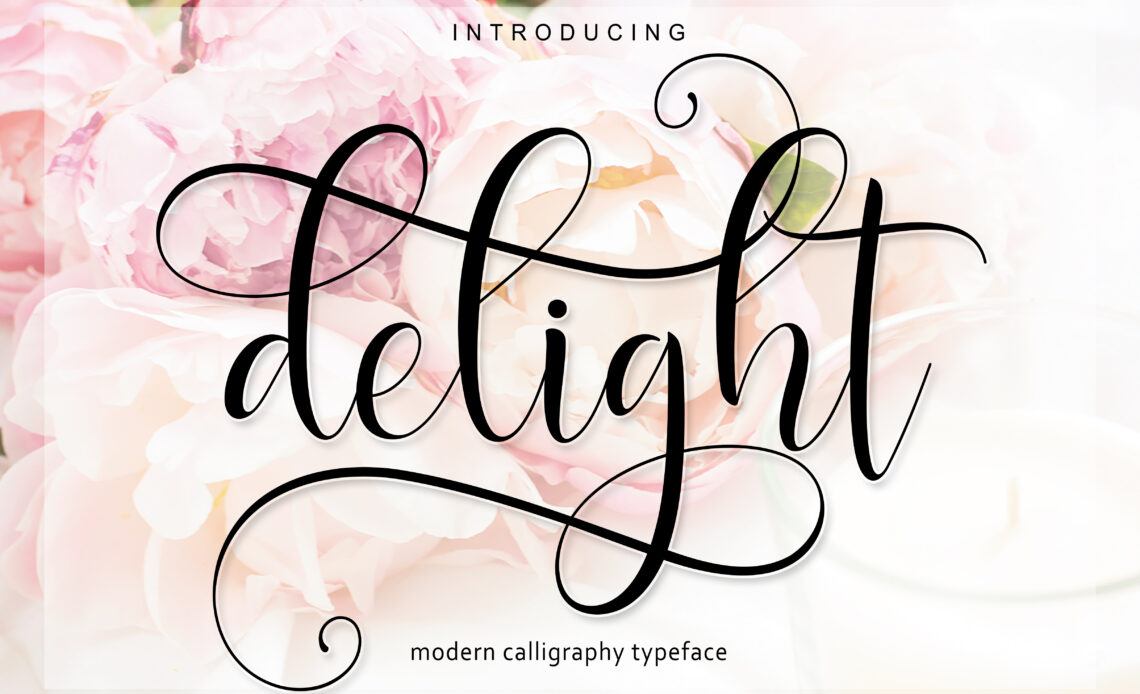
Unleash the charm and sophistication of your creative projects with the Delight Script Font, a captivating script font family designed by Amarlettering. This font, blessed with both elegance and legibility, is a true delight to work with, bringing a touch of artistry and uniqueness to your designs.
Step into a world of endless possibilities, where the Delight Script Font dances across your pages, leaving a trail of visual allure. Its graceful lines and timeless appeal make it a natural choice for branding, logos, invitations, wedding stationery, posters, and social media graphics. With its inherent charm, the Delight Script Font captivates audiences, leaving a lasting impression that lingers in the hearts of all who encounter it.
Beyond its aesthetic appeal, the Delight Script Font is a versatile powerhouse, capable of adapting seamlessly to a multitude of creative endeavors. Whether you're a seasoned designer seeking to elevate your projects or a budding enthusiast yearning to make a mark in the creative realm, this font is your perfect companion. Its versatility knows no bounds, allowing you to craft designs that resonate with your audience, leaving an indelible imprint in the world of aesthetics.
Dive into the world of Delight Script Font and discover a world where elegance meets creativity, where every letter dances with grace, and where your designs come alive with captivating charm. Embrace the joy of creating with a font that ignites your imagination and unlocks a realm of endless possibilities.